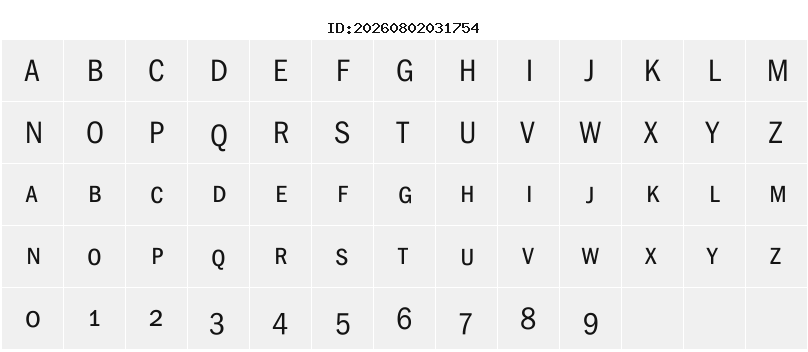
MVGothicCondSC Preview
About MVGothicCondSC.ttf
MVGothicCondSC.ttf is a modern, elegant sans-serif font designed for ultimate readability and visual harmony. Perfect for branding, headlines, web design, and print materials.